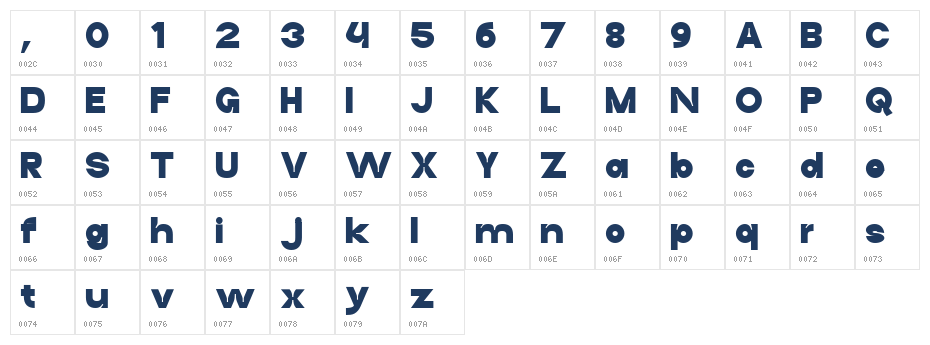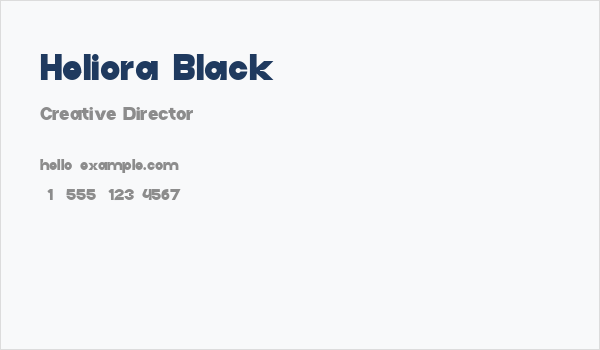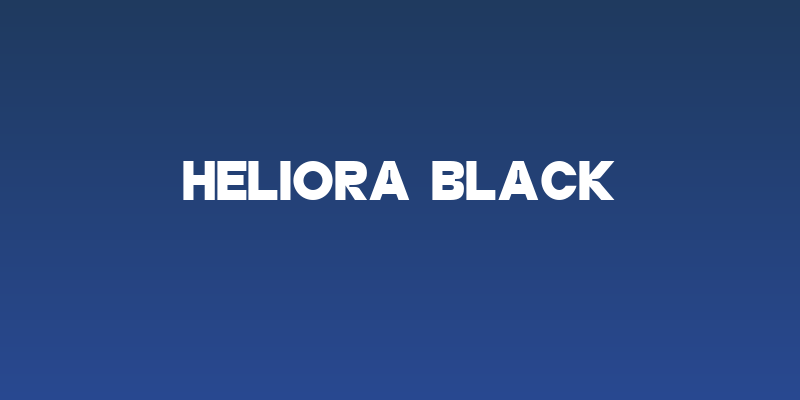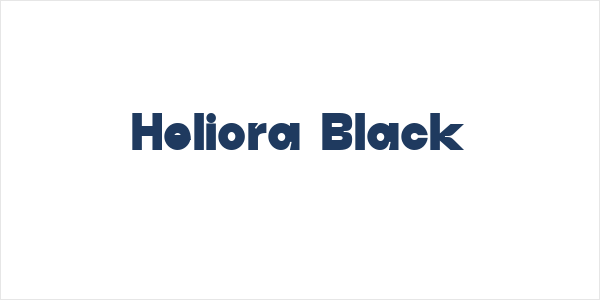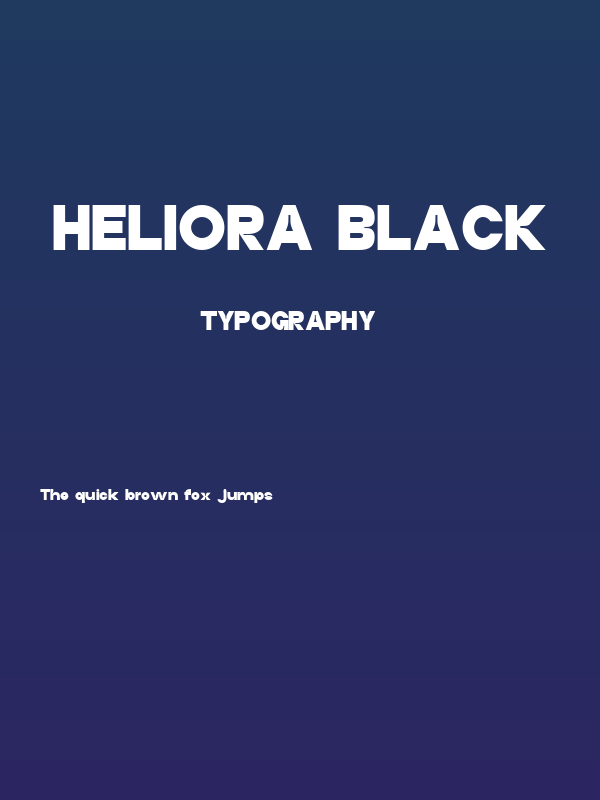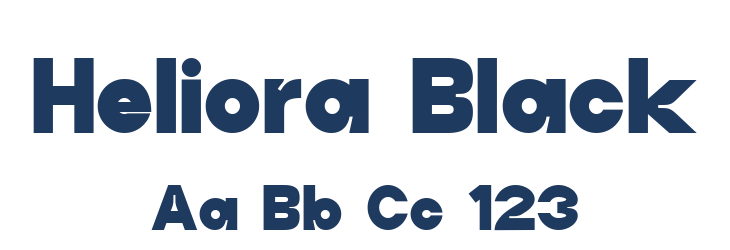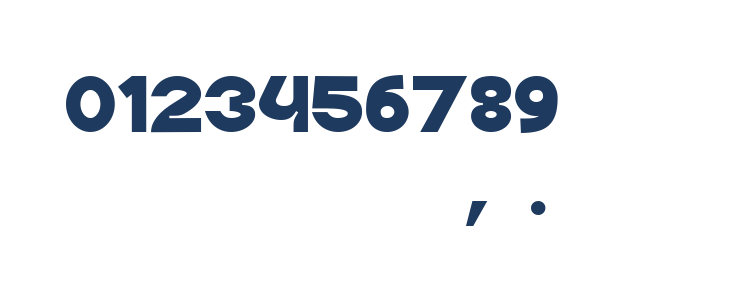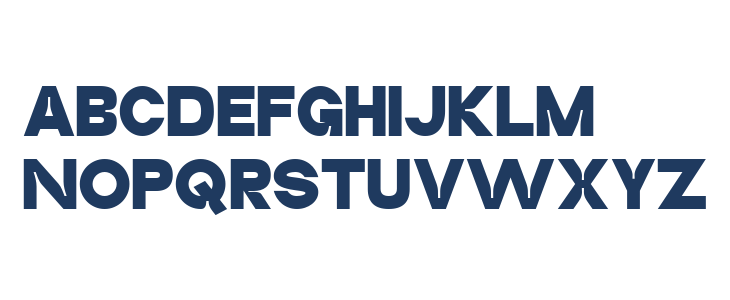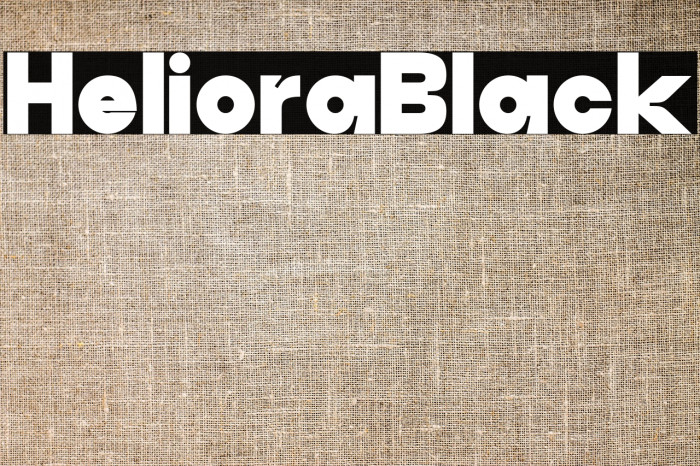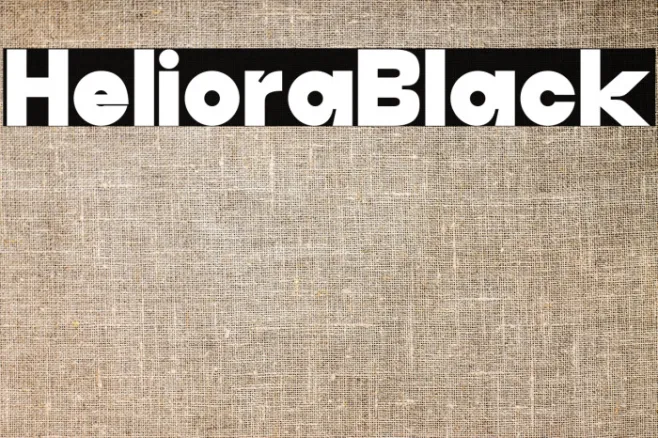
Heliora Black Font
Heliora Black Description
Bold, rounded, sans-serif font with a modern and friendly appearance.
| Overall Style | Modern, Friendly |